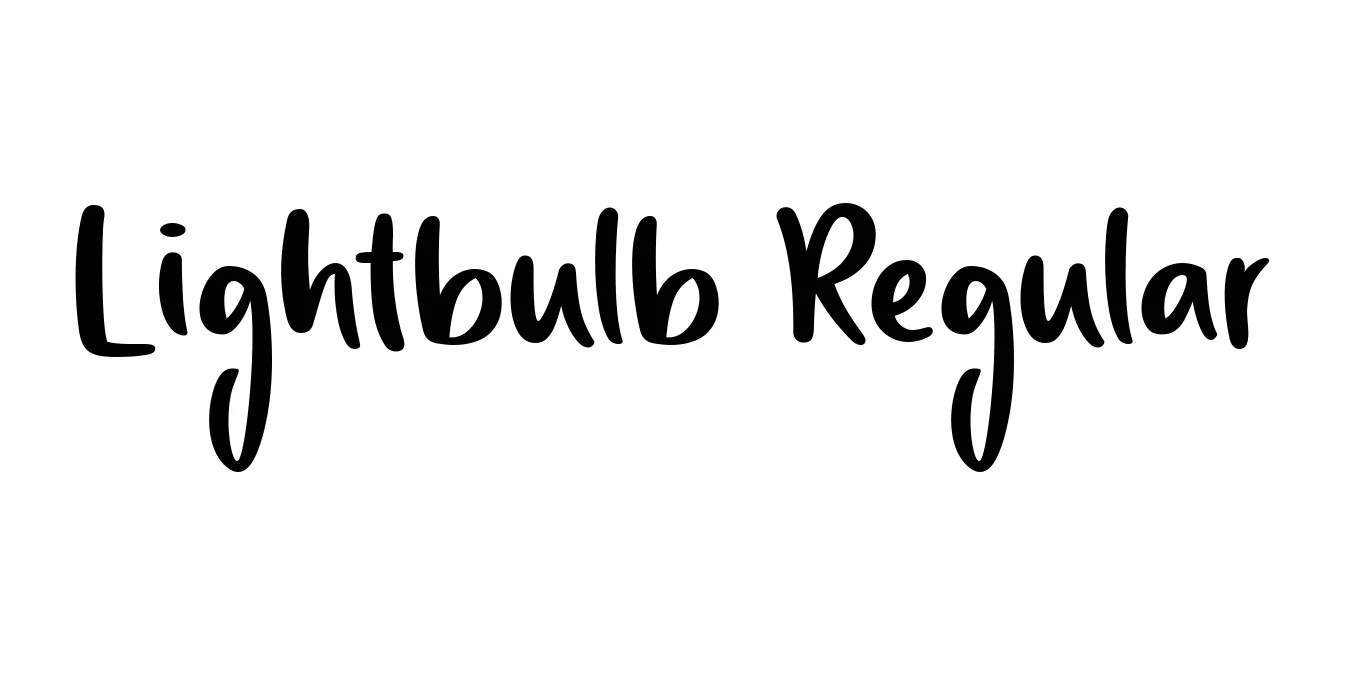
Lightbulb Regular
The Lightbulb Regular font is a contemporary script typeface meticulously designed by Mans Greback. It was created to capture the effortless flow of manual handwriting, featuring smooth, monolinear strokes that evoke a sense of modern elegance and approachable charm. The design emphasizes natural connections and fluid letterforms, making it an excellent choice for projects that require a personal, human touch without sacrificing professional clarity.
Historically, Lightbulb Regular has become a staple for digital creators and brand identity designers who aim for a signature-style aesthetic. Since its introduction, it has been widely adopted for its versatility in both print and digital media. Its consistent weight and balanced spacing ensure high legibility, which is often a challenge for handwritten fonts, allowing it to perform well in various sizes from large-scale headings to smaller decorative accents.
Lightbulb Regular Best Uses
Ideal for creating unique, personal-style logos and corporate identities.
Perfect for high-engagement graphics, quotes, and lifestyle imagery.
Adds a bespoke feel to wedding invitations, greeting cards, and business cards.
Excellent for boutique product labels that require an artisanal look.